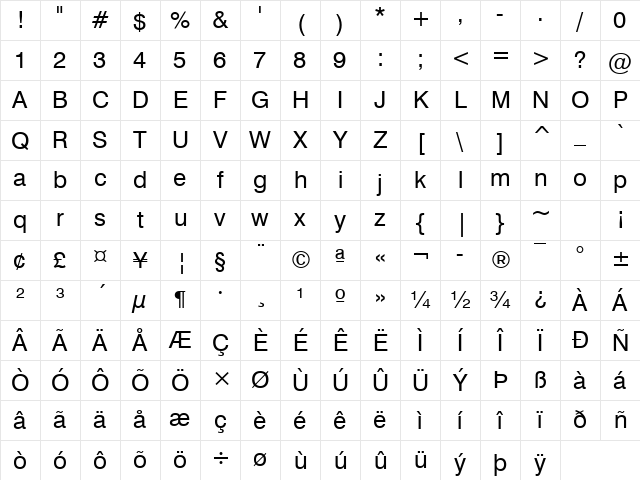
Swis721 Win95BT Roman
Design Context for Swis721 Win95BT
Swis721 Win95BT is a composed and adaptable typeface that performs quietly and consistently across a wide range of design contexts.
Pro Tip: Use Swis721 Win95BT in both headline and body roles to test its range before committing to a single application.